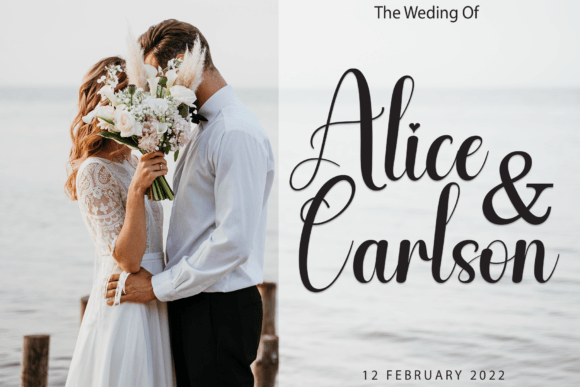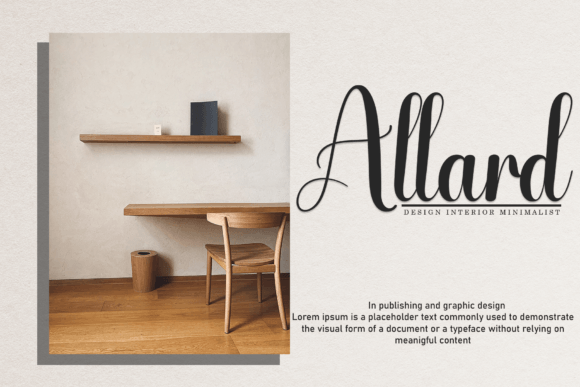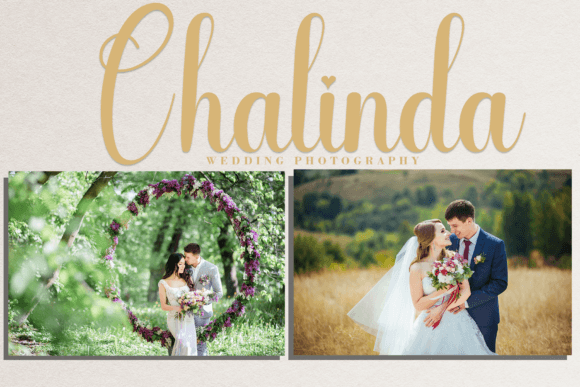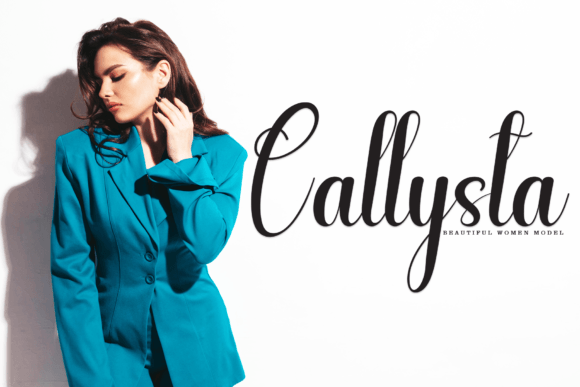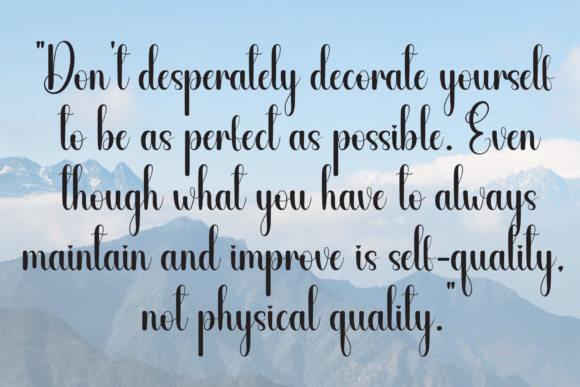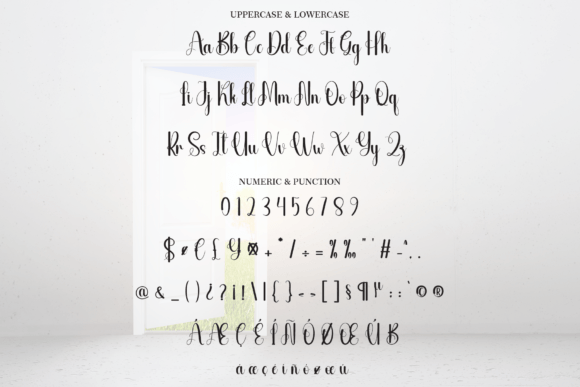
Introducing Backdoor Font: The Sweet and Friendly Handwritten Font for Your Creative Projects
Are you tired of using the same old fonts for your designs? Look no further! Backdoor Font is a beautiful, handwritten font that is sure to add a touch of sweetness and friendliness to your projects. With its fresh and neat design, Backdoor Font is perfect for creating wedding invitations, cards, and other designs that require a fun and playful touch.
What Makes Backdoor Font Special?
Backdoor Font is a unique and charming font that stands out from the crowd. Its handwritten design gives it a personal and approachable feel, making it ideal for projects that require a touch of warmth and personality. The font is carefully crafted to be easy to read and understand, making it perfect for use in a variety of designs, from wedding invitations to social media graphics.
Characteristics of Backdoor Font
So, what makes Backdoor Font so special? Here are some of its key characteristics:
- Sweet and Friendly: Backdoor Font has a sweet and friendly design that is sure to capture the hearts of your audience.
- Handwritten: The font has a beautiful, handwritten design that gives it a personal and approachable feel.
- Fresh and Neat: Backdoor Font is fresh and neat, making it perfect for use in a variety of designs.
- Easy to Read: The font is carefully crafted to be easy to read and understand, making it perfect for use in body text.
Uses of Backdoor Font
Backdoor Font is a versatile font that can be used in a variety of designs, including:
- Wedding Invitations: Backdoor Font is perfect for creating beautiful and elegant wedding invitations.
- Cards: The font is ideal for creating greeting cards, birthday cards, and other types of cards.
- Social Media Graphics: Backdoor Font can be used to create fun and engaging social media graphics.
- Logos: The font can be used to create beautiful and unique logos for businesses and brands.
Why Designers and Crafters Love Backdoor Font
Designers and crafters love Backdoor Font for many reasons. Here are a few:
- Unique Design: Backdoor Font has a unique and charming design that sets it apart from other fonts.
- Versatile: Backdoor Font is a versatile font that can be used in a variety of designs.
- High-Quality: The font is of high quality, making it perfect for use in professional designs.
In conclusion, Backdoor Font is a beautiful and unique handwritten font that is perfect for designers and crafters. With its sweet and friendly design, fresh and neat look, and versatility, Backdoor Font is sure to add a touch of warmth and personality to your designs. Whether you’re creating wedding invitations, cards, or social media graphics, Backdoor Font is the perfect choice. So why wait? Download Backdoor Font today and start creating beautiful designs!